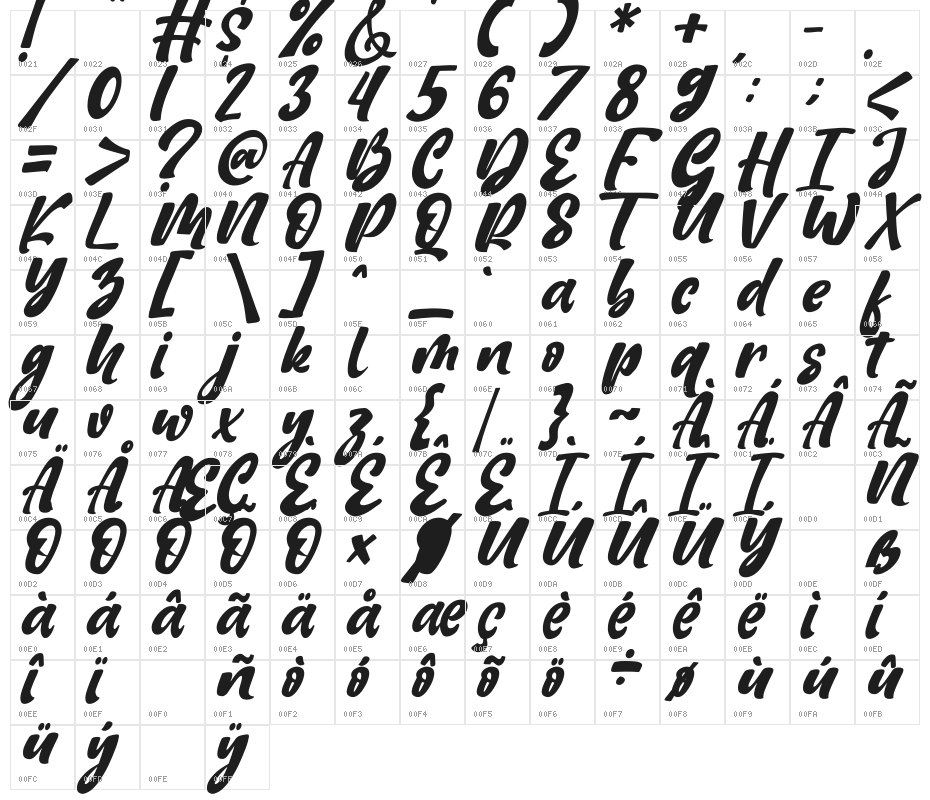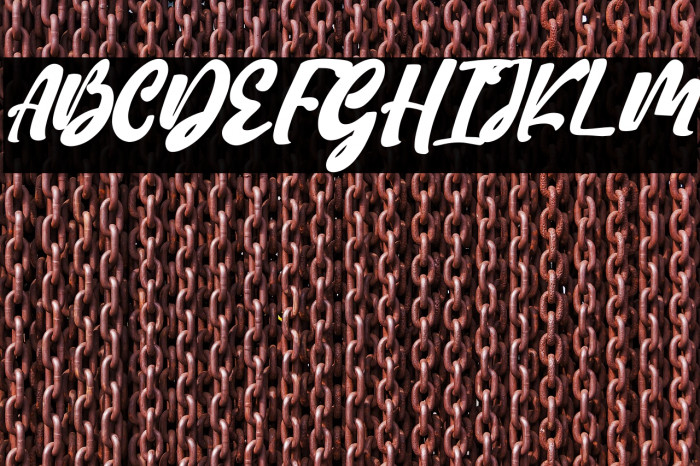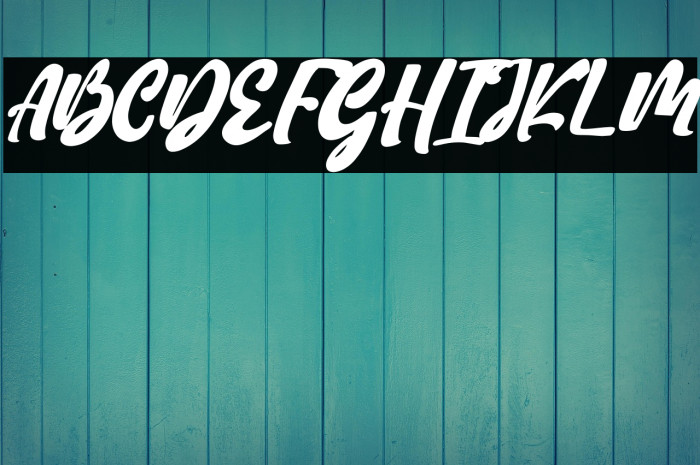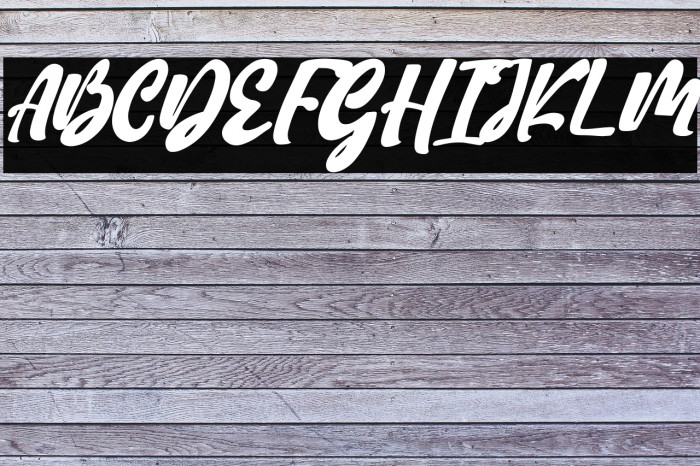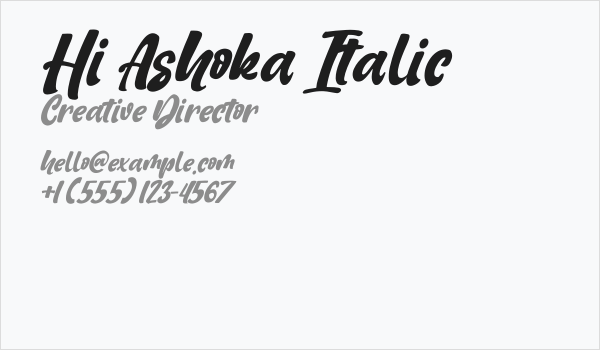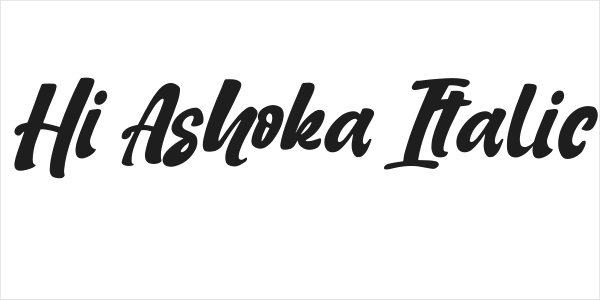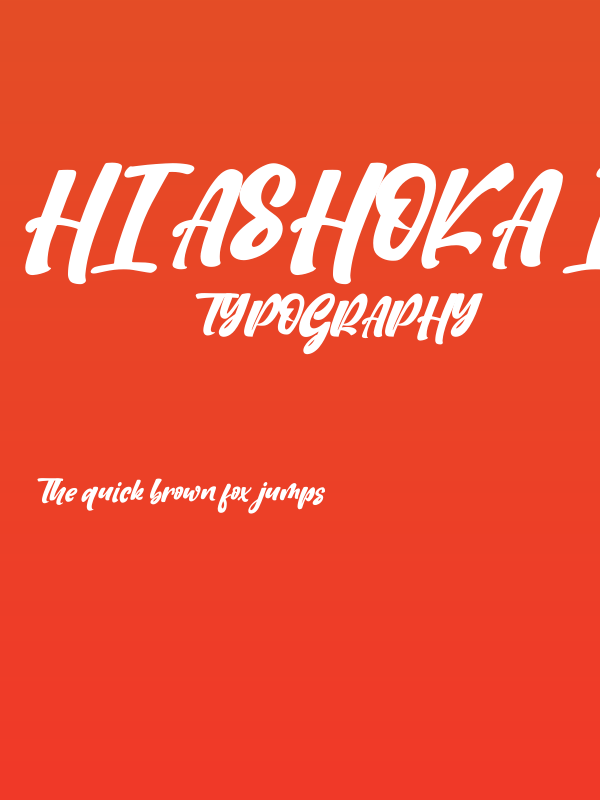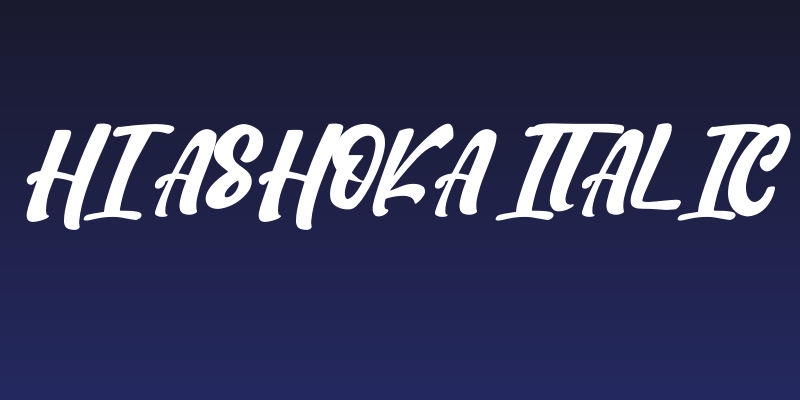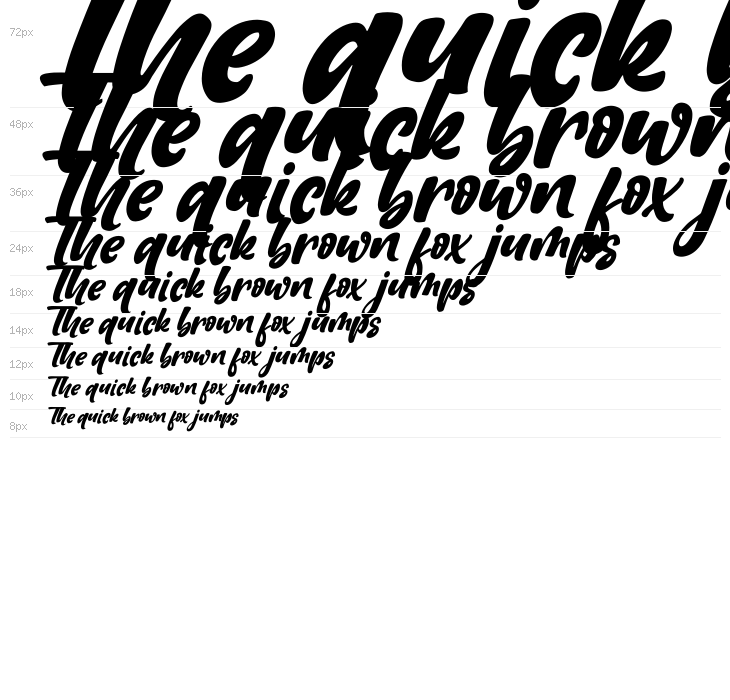
Hi Ashoka Italic Font
Hi Ashoka Italic Description
This font features a bold and dynamic script style with a strong italic slant, giving it a sense of motion and fluidity. The characters are thick and rounded, with a consistent stroke width that adds to its bold appearance. The uppercase letters are particularly striking, with exaggerated curves and loops that enhance its decorative nature. Lowercase letters maintain a cohesive flow, making it suitable for creating eye-catching headlines or logos. The numerals and special characters are equally bold, ensuring uniformity across all text elements. This font's energetic and playful style makes it ideal for projects that require a touch of personality and flair.